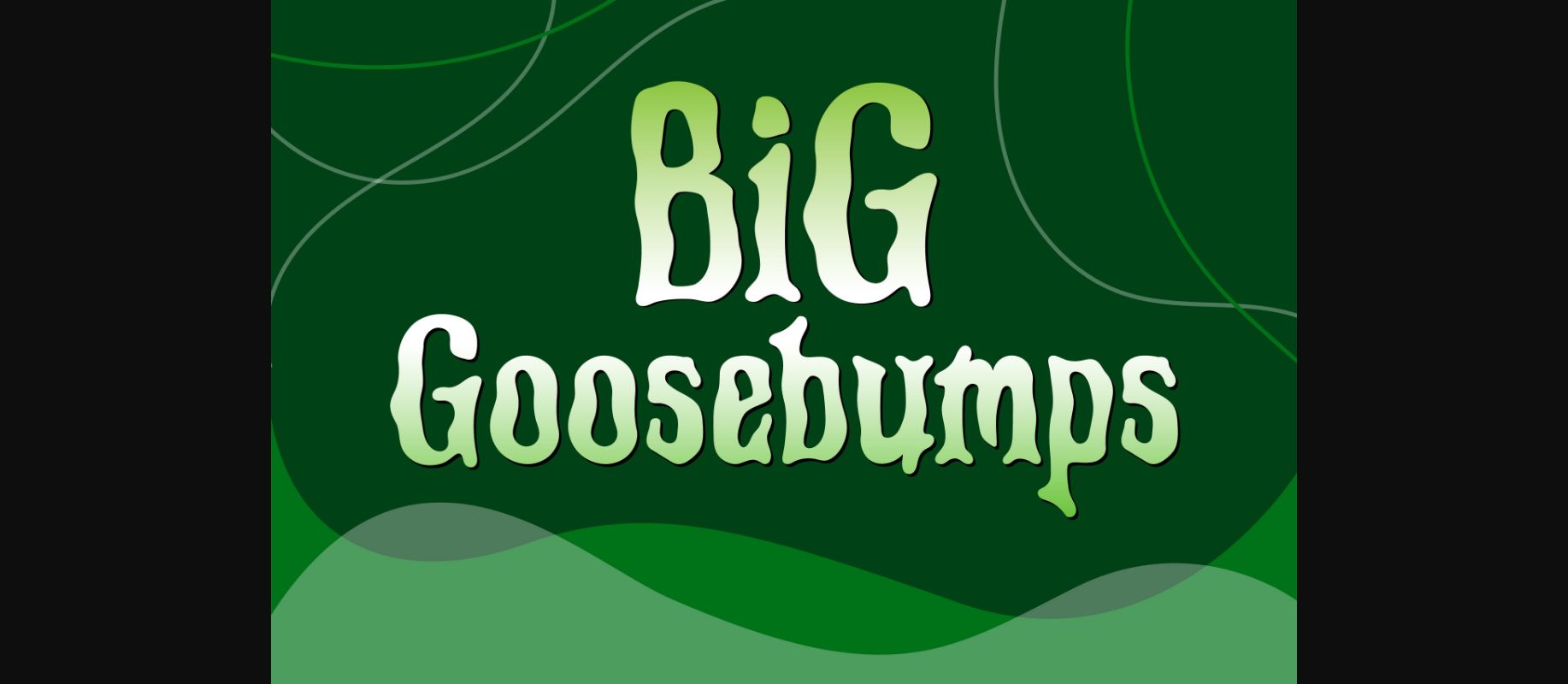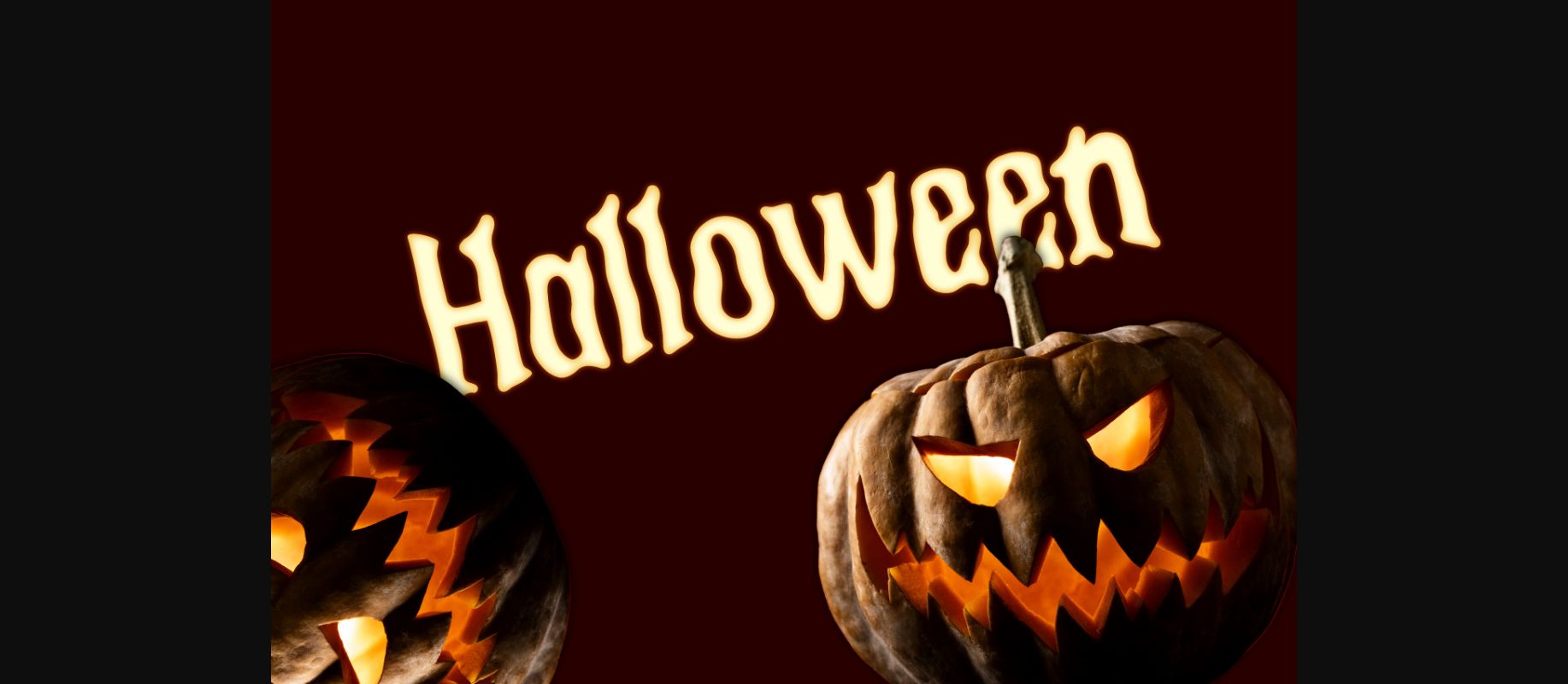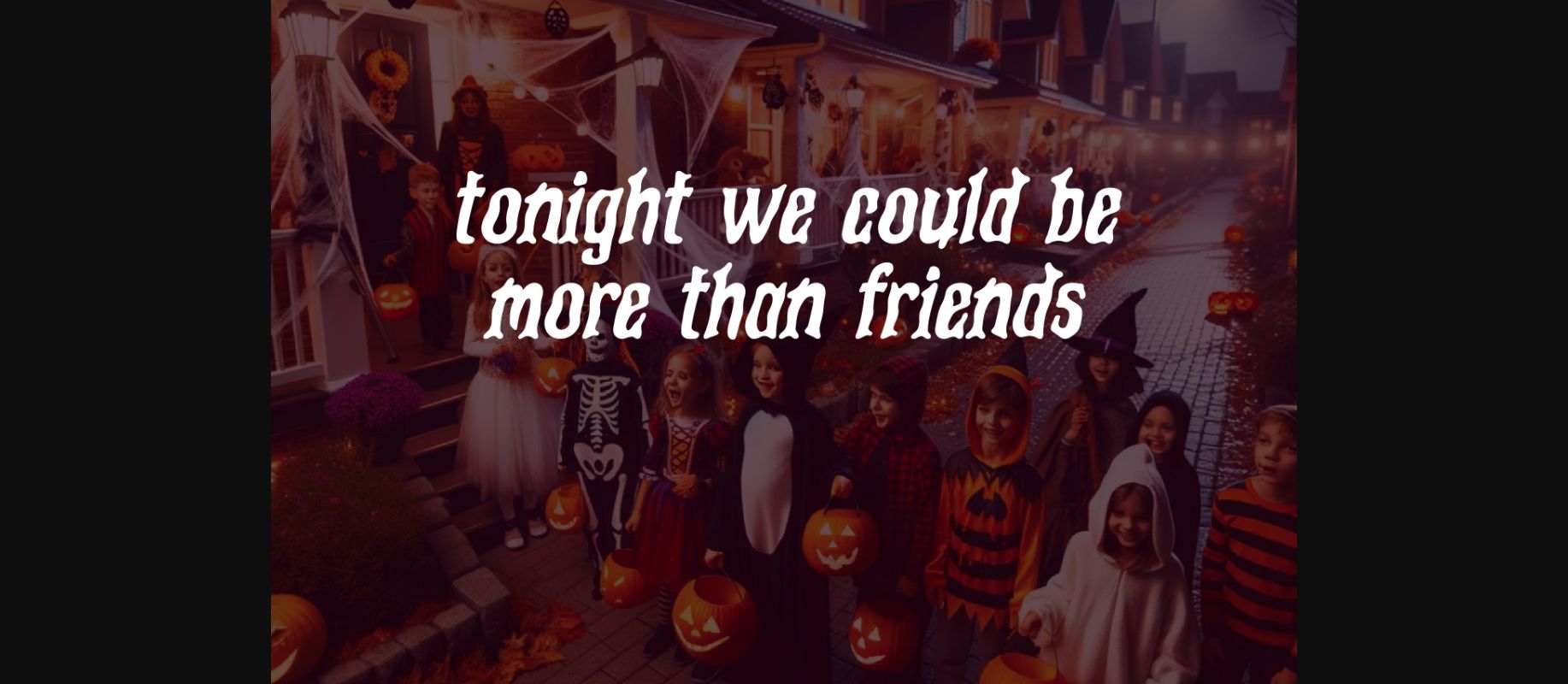
About Big Goosebumps Font
This stylish Gothic decorative font offers a modern twist, making it an ideal choice for creating captivating Halloween-themed movie titles, eye-catching T-shirt designs, attention-grabbing posters, versatile templates, and beyond. With a diverse set of 96 distinctive glyphs and 95 characters, this font empowers your creative endeavors.